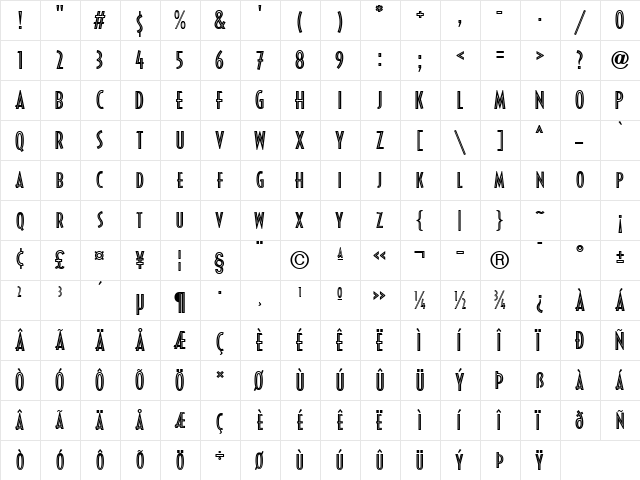
Decotura ICG Inline Regular
Design Context for Decotura ICG Inline Typeface
Decotura ICG Inline is built around its visual character rather than neutral utility — its distinctive forms are designed to make an impression at display sizes.
Font Pairing: Pair with a clean neutral sans-serif for body copy to let Decotura ICG Inline's character lead without overwhelming the composition.
Pro Tip: Treat Decotura ICG Inline as the centrepiece of your typographic hierarchy. One strong heading set in a decorative face can carry an entire layout.